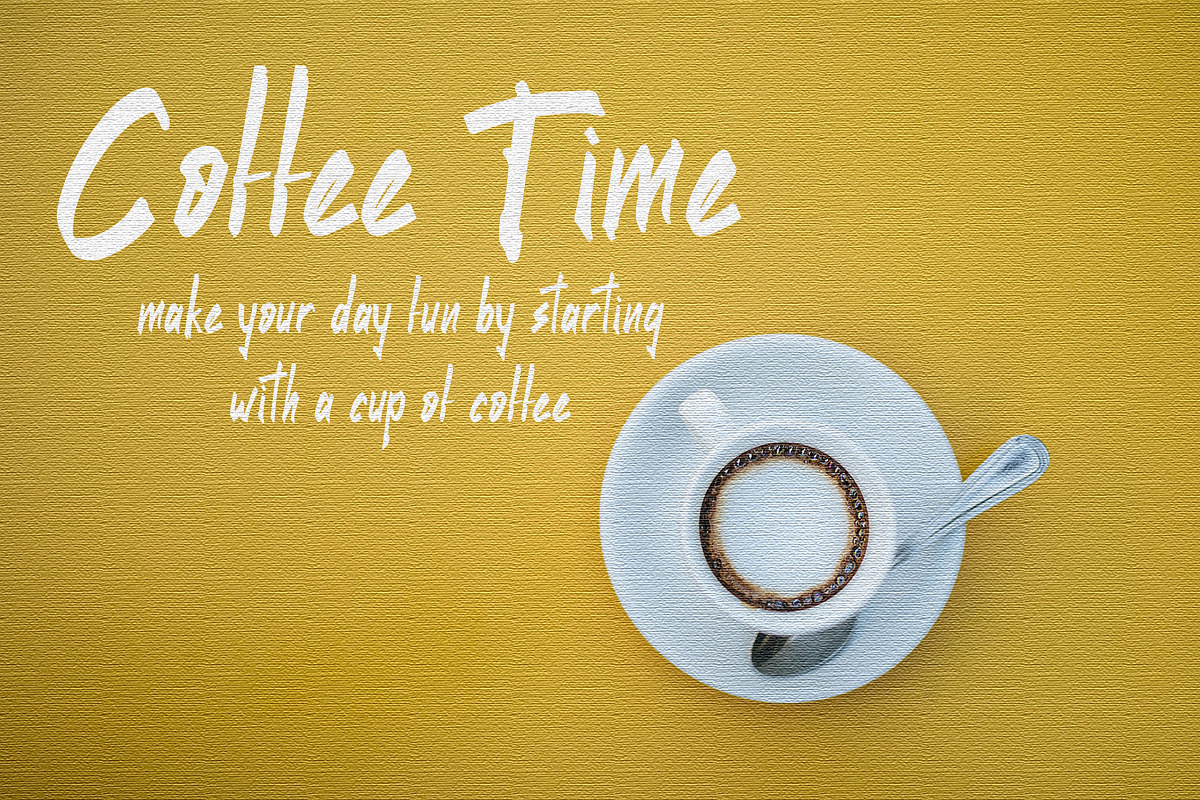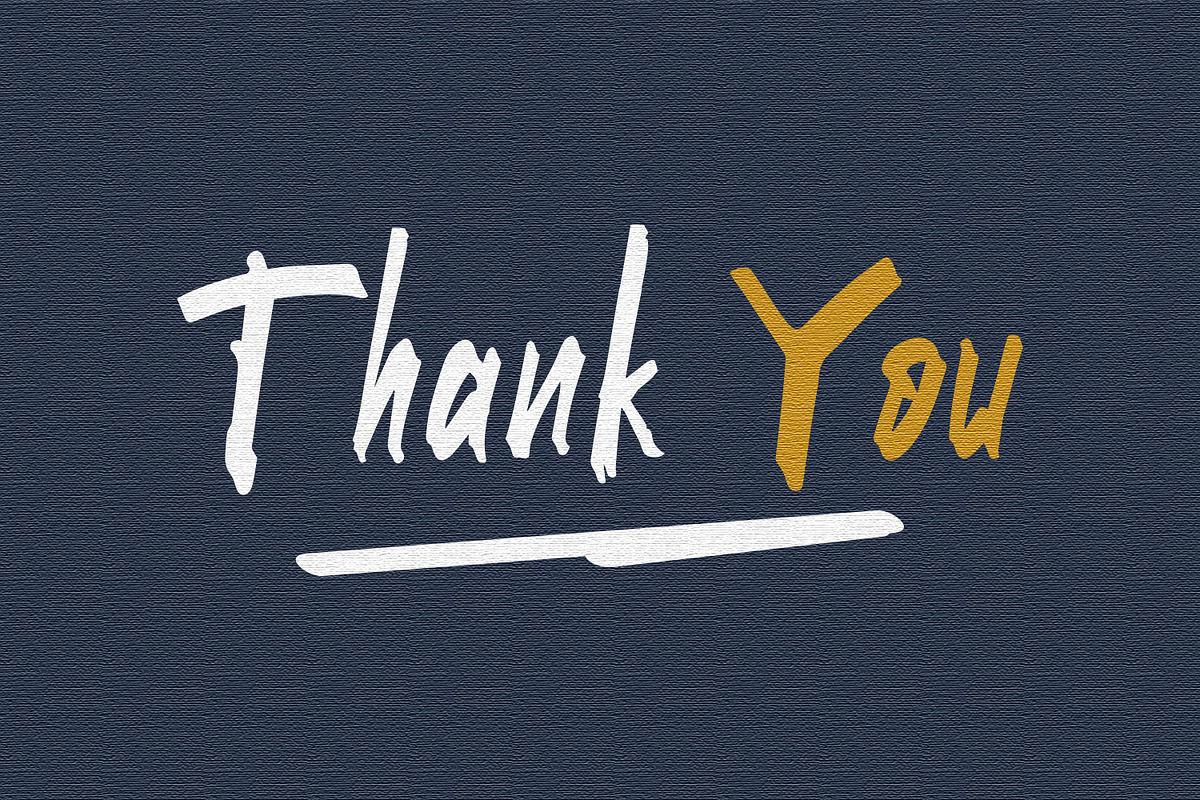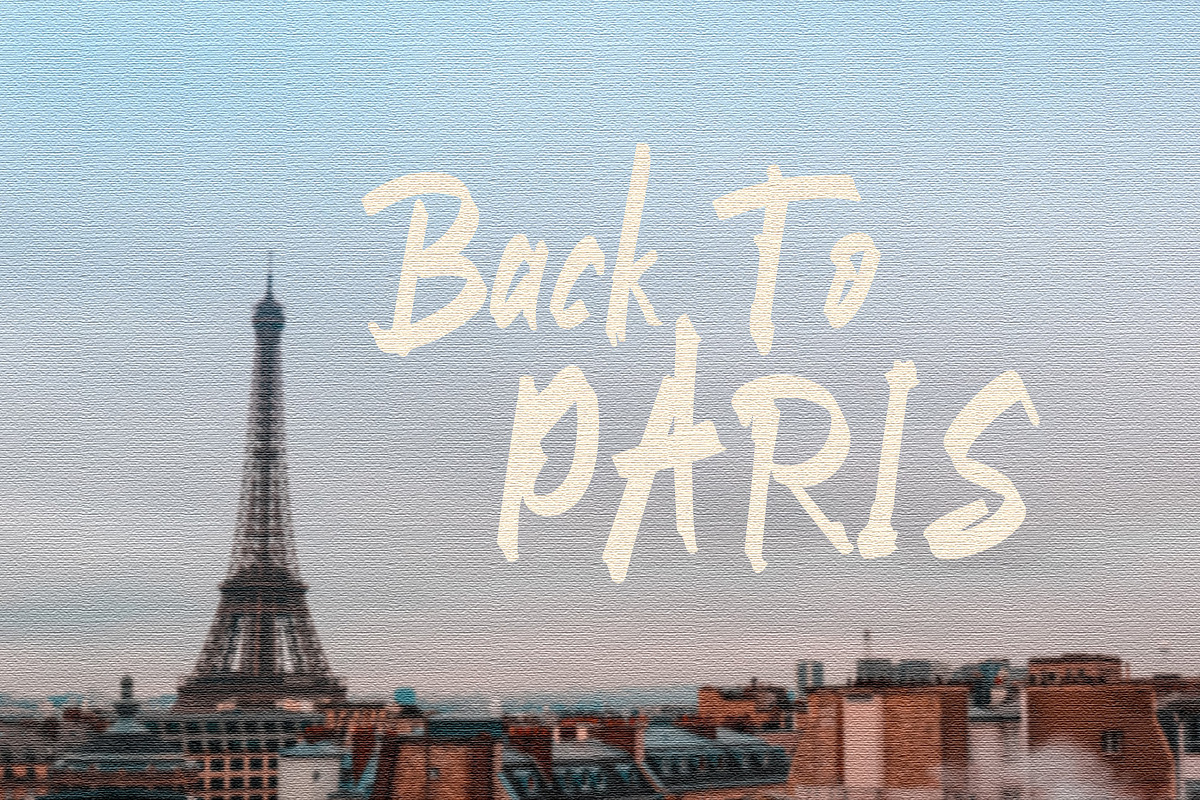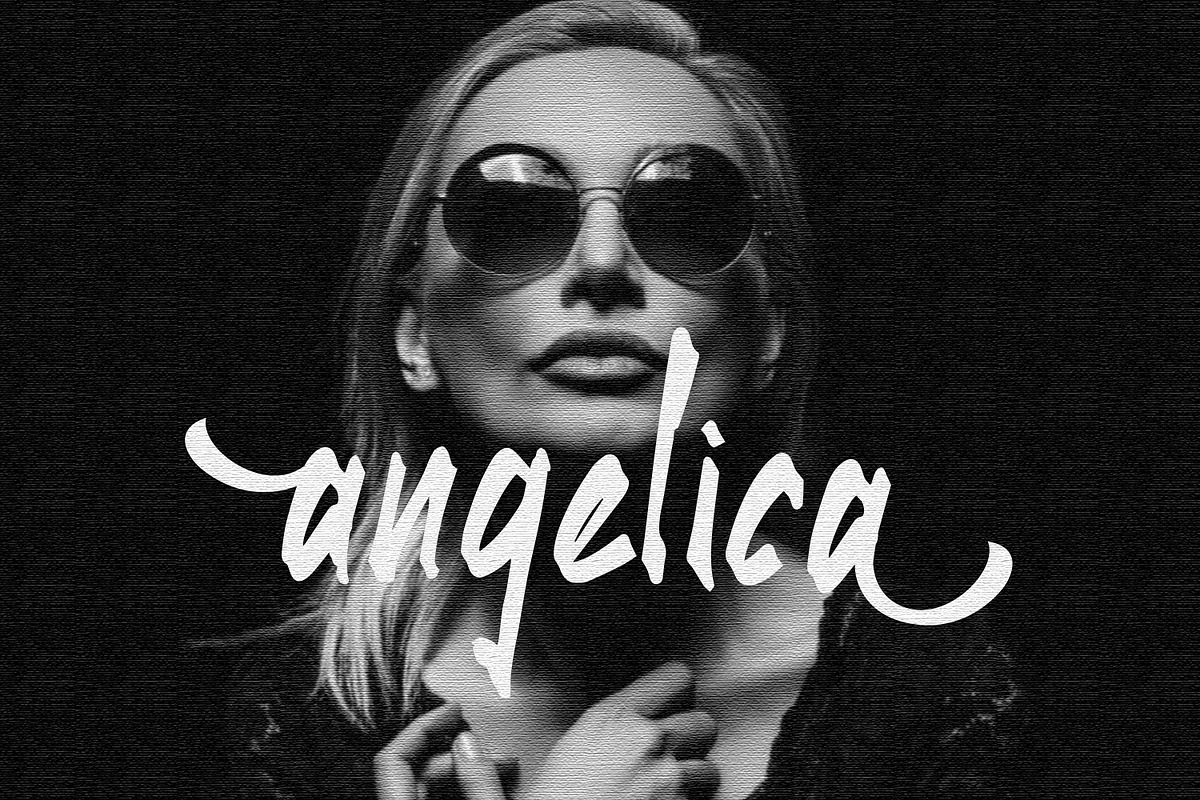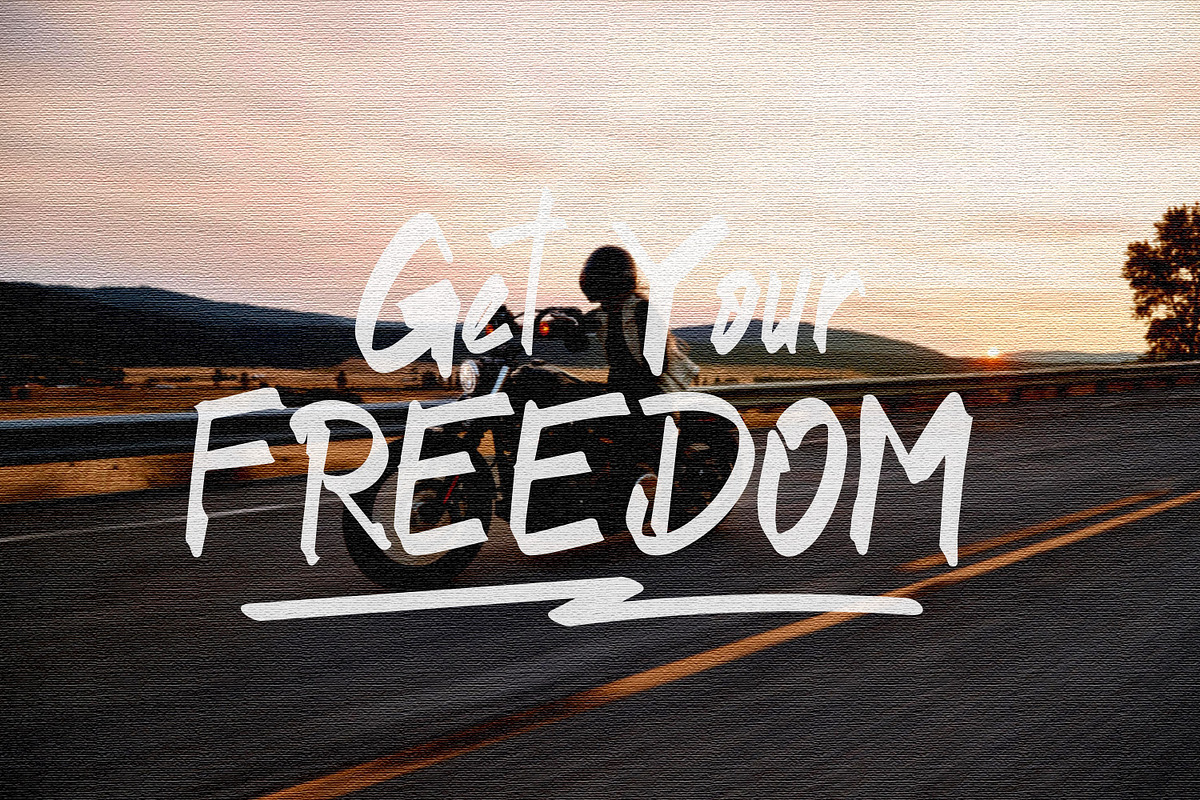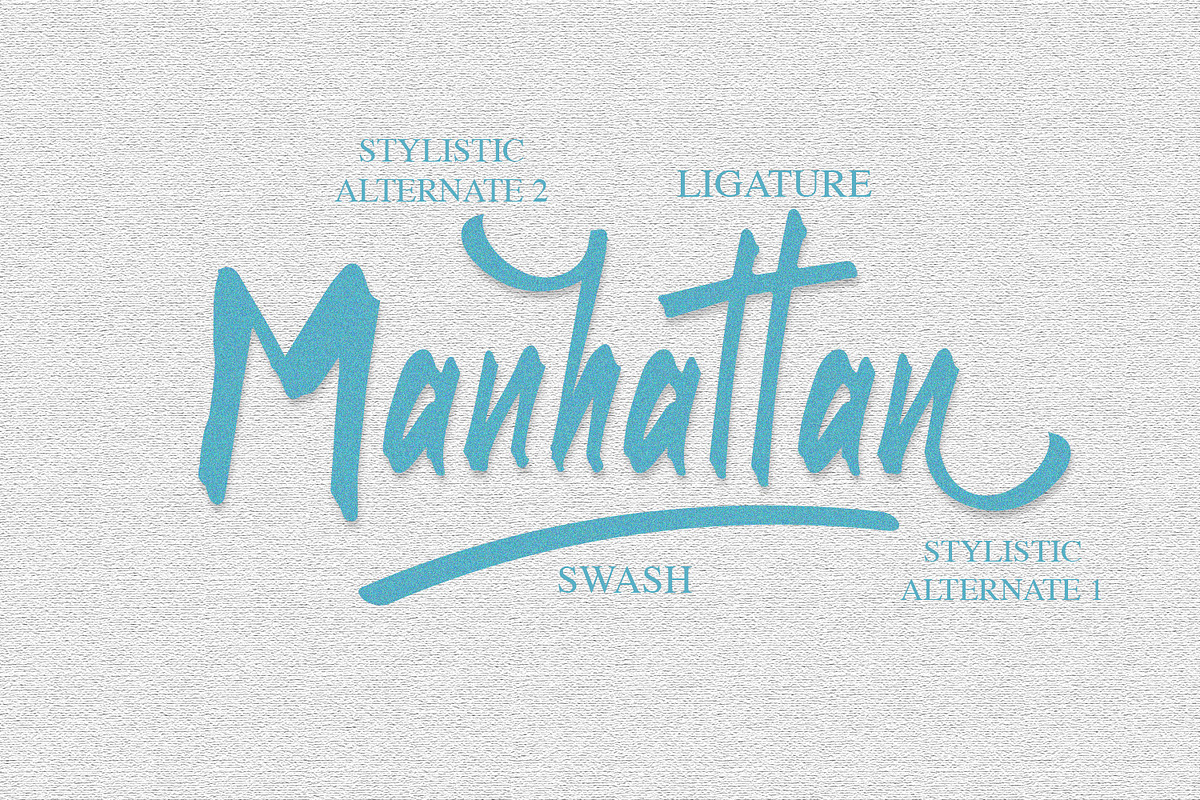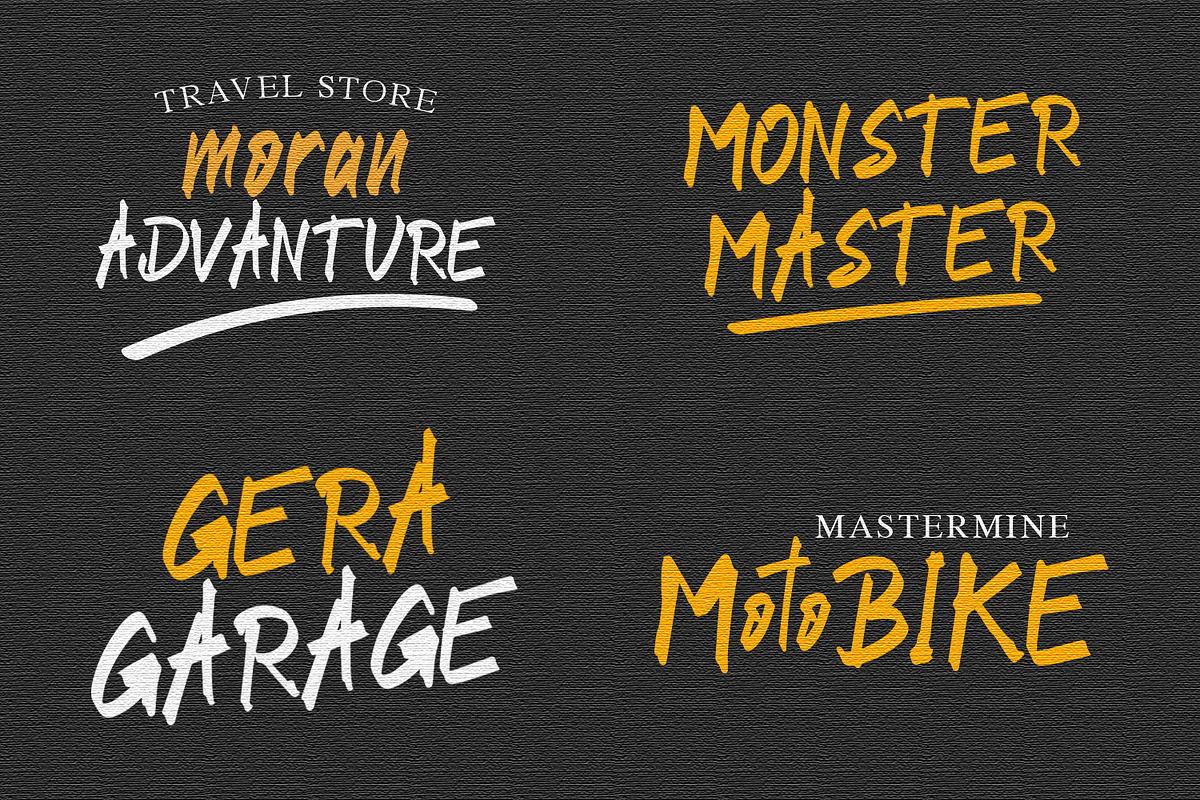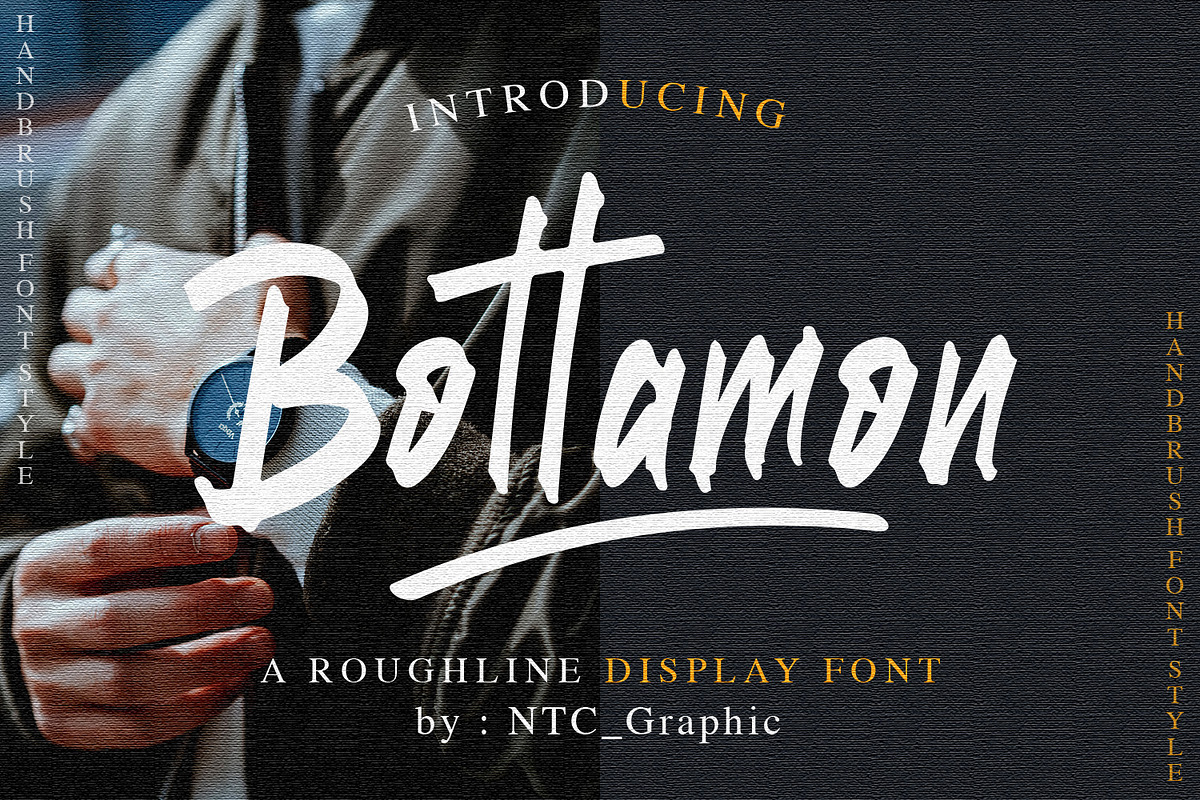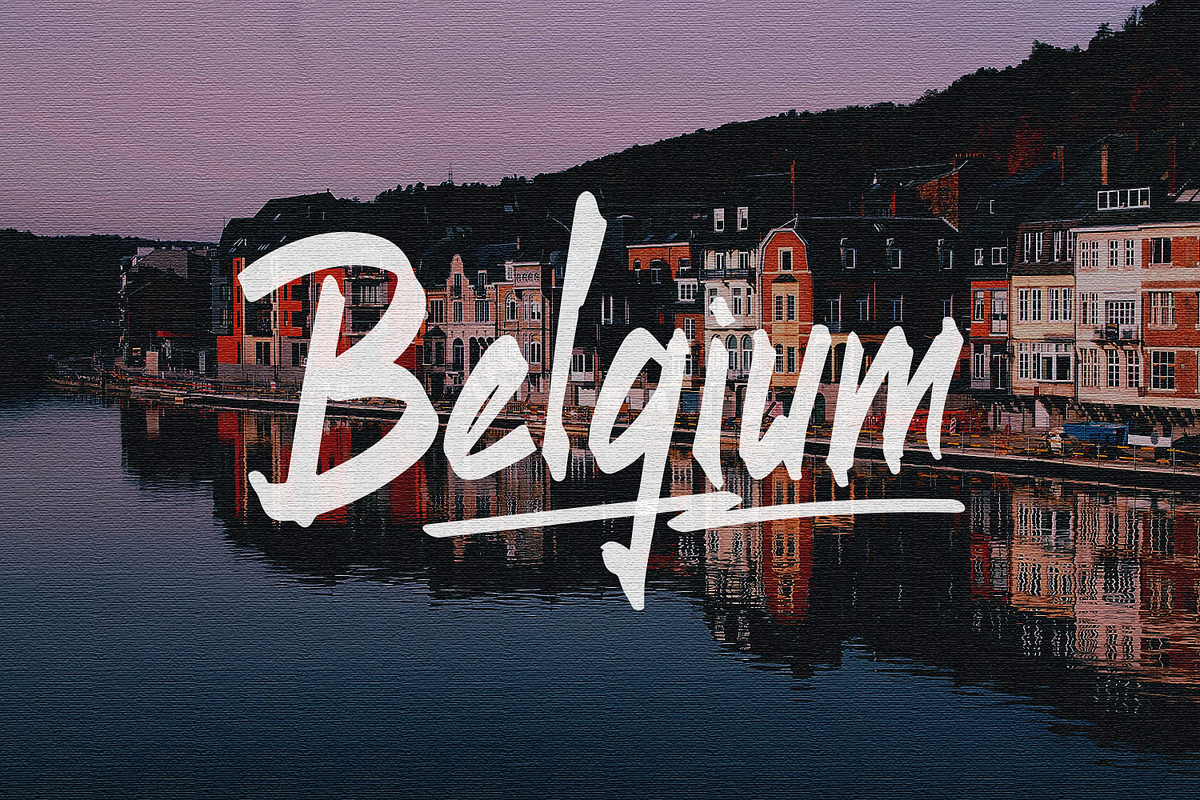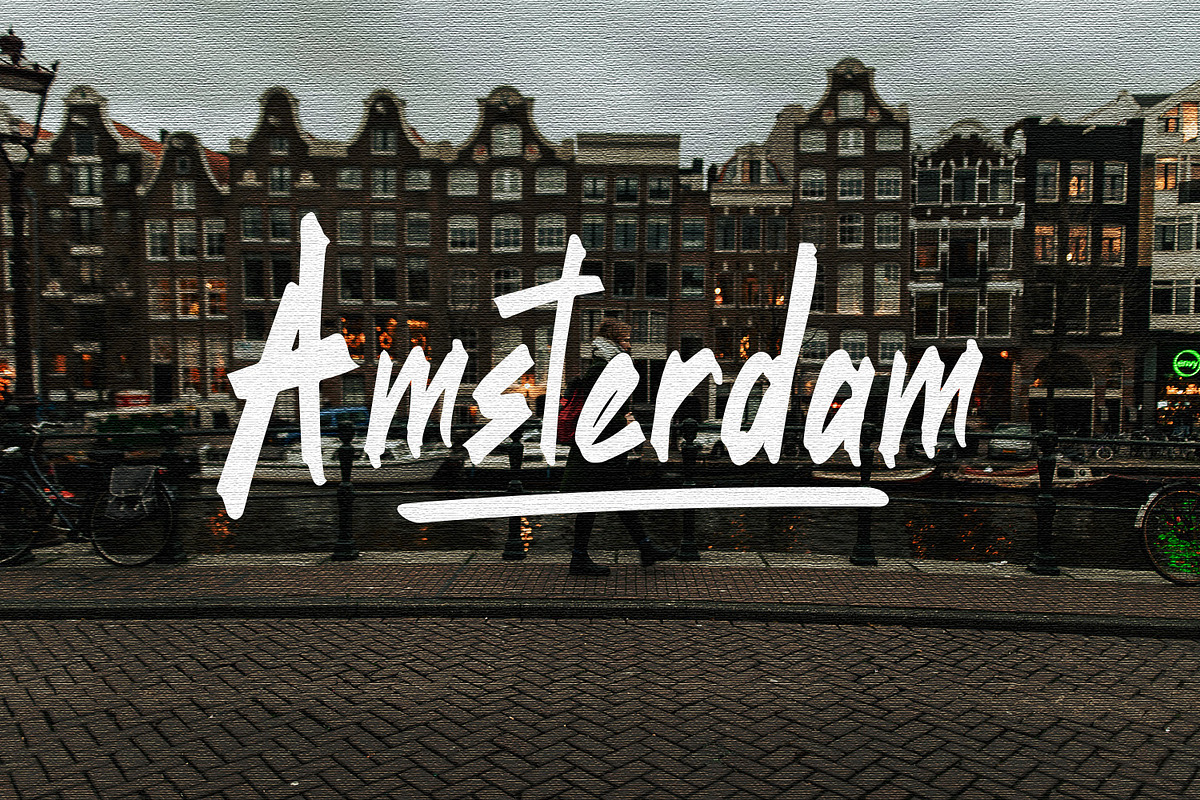
Bottamon
DETAILS
Bottamon is a Display font with style brush. Has a rough line character. Font characters symbolize courage and freedom. This font is suitable for making previews and covers, logo designs, shirt designs and other graphic needs.
Bottamon with Uppercase characters A-Z, Lowercase characters a-z, Punctuation, Ligature, Stylistic Alternate, Numerical and Swashes
-Ligature
-Stylistic Alternate
-SWASHES